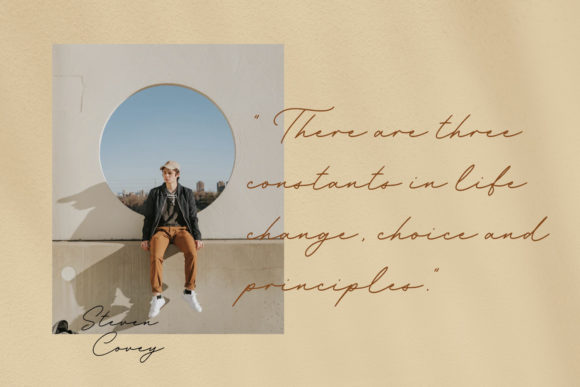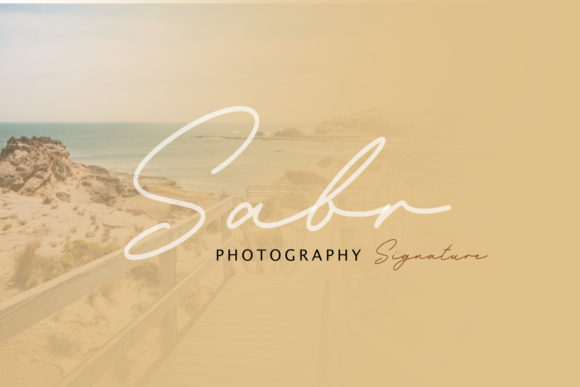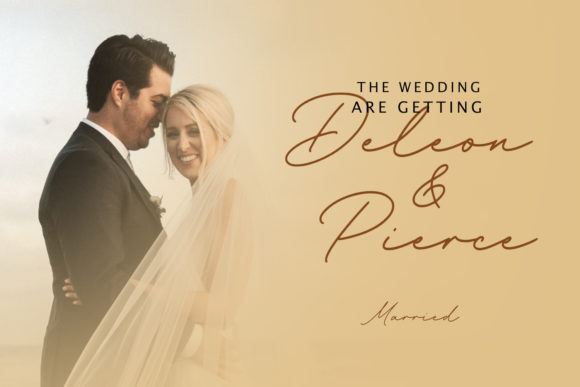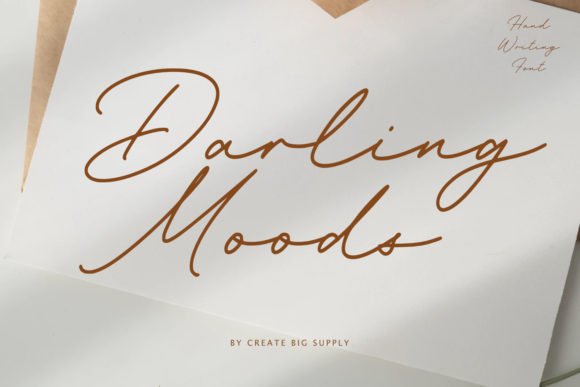
Introduction to Darling Moods Font
Darling Moods is a sleek and elegant script font.
It has a beautiful, natural handwriting style that will leave an authentic impression on your designs .